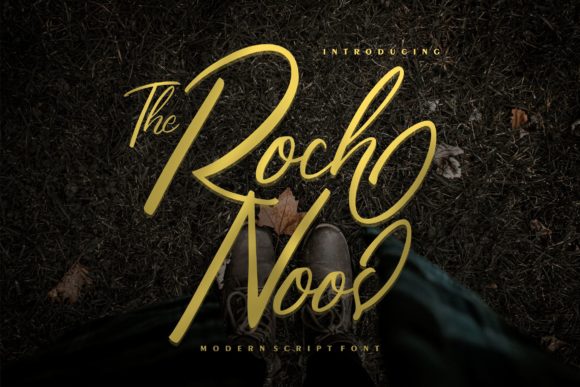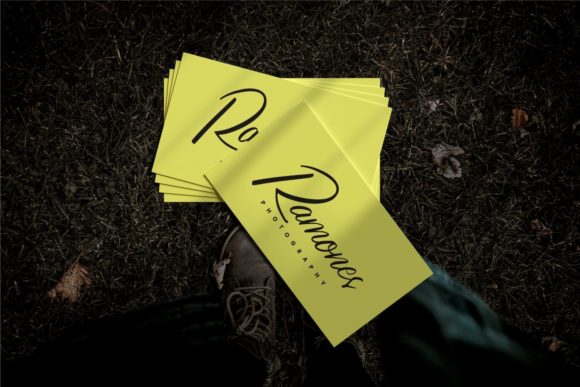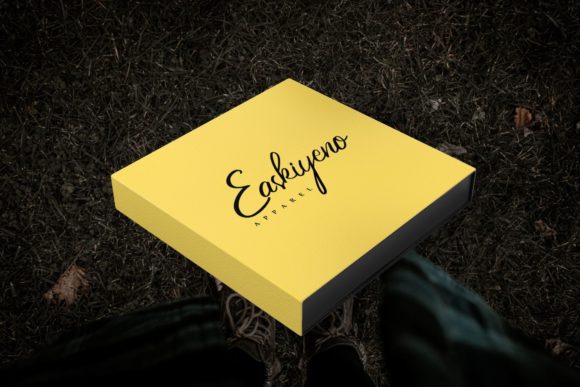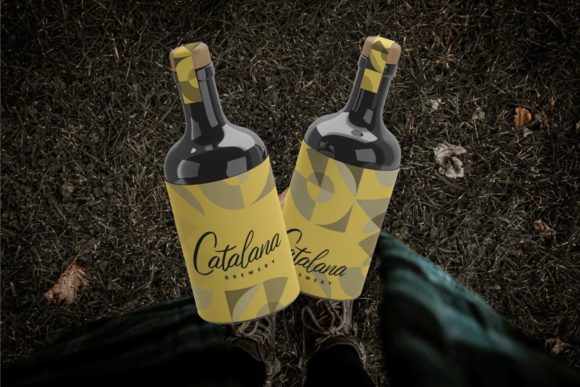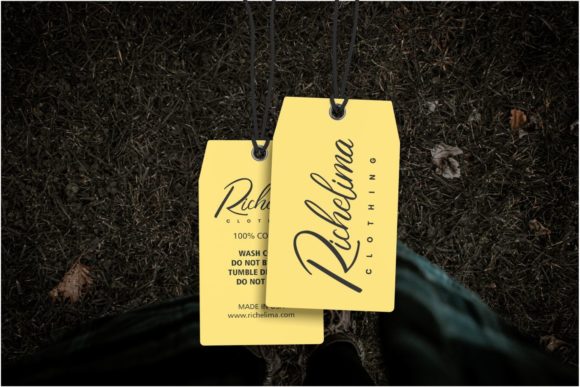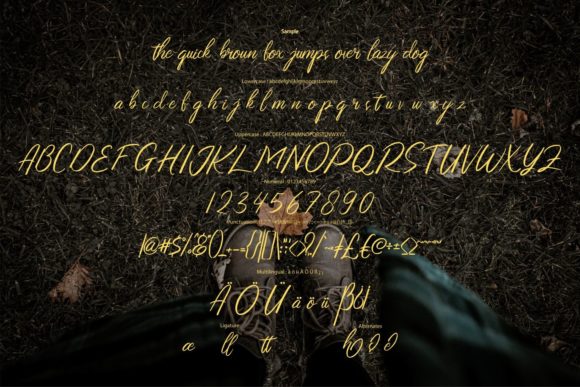
The Roch Noos Script Font
About The Roch Noos Script Font
**The Roch Noos | Modern Script Font** with a calligraphy style. It looks so beautiful on invitations, greeting cards, branding materials, business cards, quotes, posters, and more!